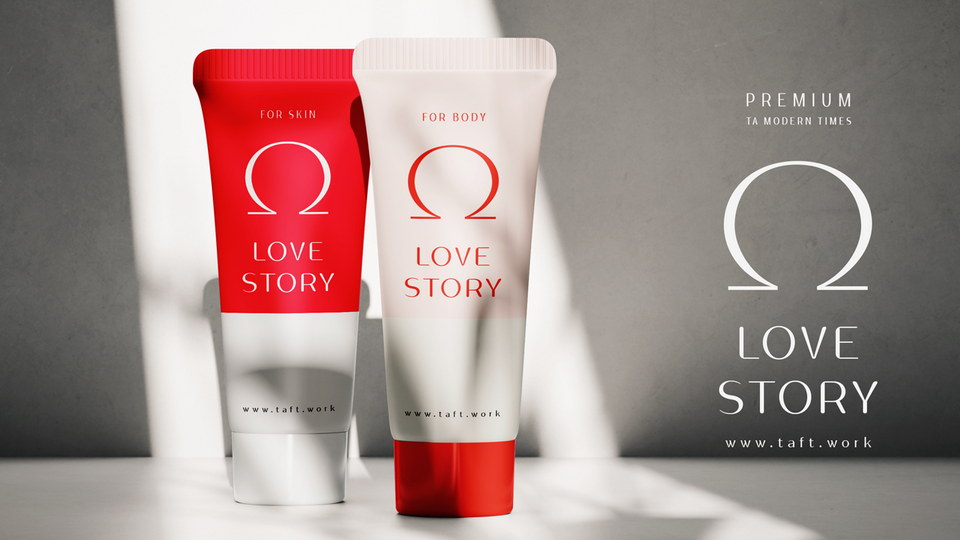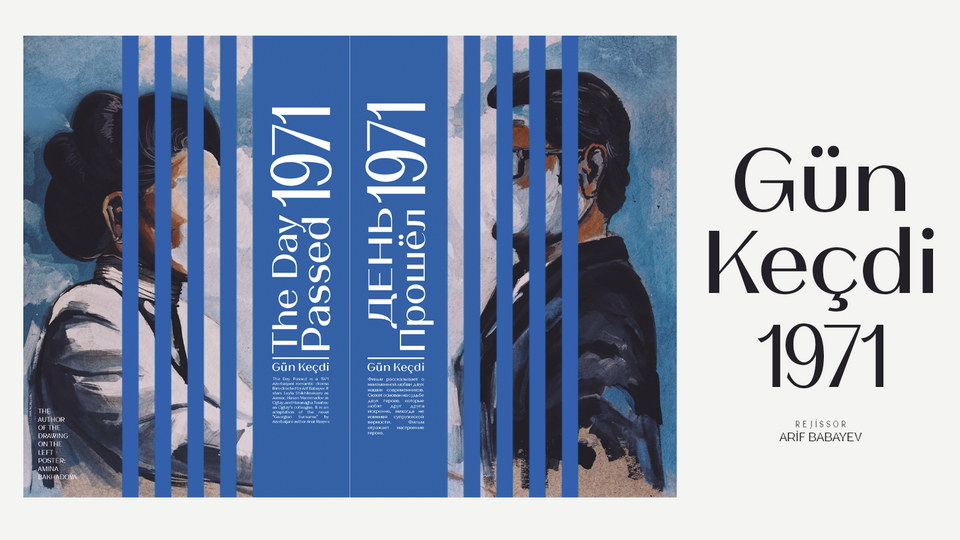
TA Modern Times Typeface
TA Modern Times is a high contrast sans serif typeface. It's a versatile font that works for both display and text, and is great for branding and editorial use.
The typeface has with extended language support, including Western Europe, Central/Eastern Europe, Baltic, Turkish, Romanian, Cyrillic, Greek, Hebrew. Additionally, the font has multiple weights - from Extra Light to Black and styles - from Ultra Condensed to Ultra Expanded.
Designed by: Tural Alisoy